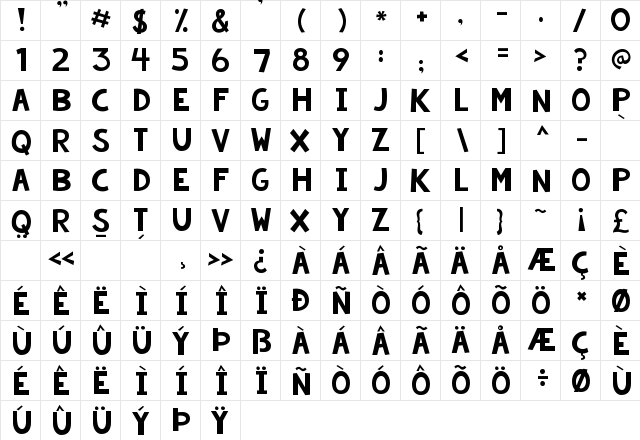
KG Summer Storm Smooth Regular
| Foundry | Kimberly Geswein |
| Designer | Kimberly Geswein |
Design Context for KG Summer Storm Smooth Typeface
KG Summer Storm Smooth offers clean, dependable letterforms without strong stylistic allegiance, making it a practical choice for designers who need flexibility.